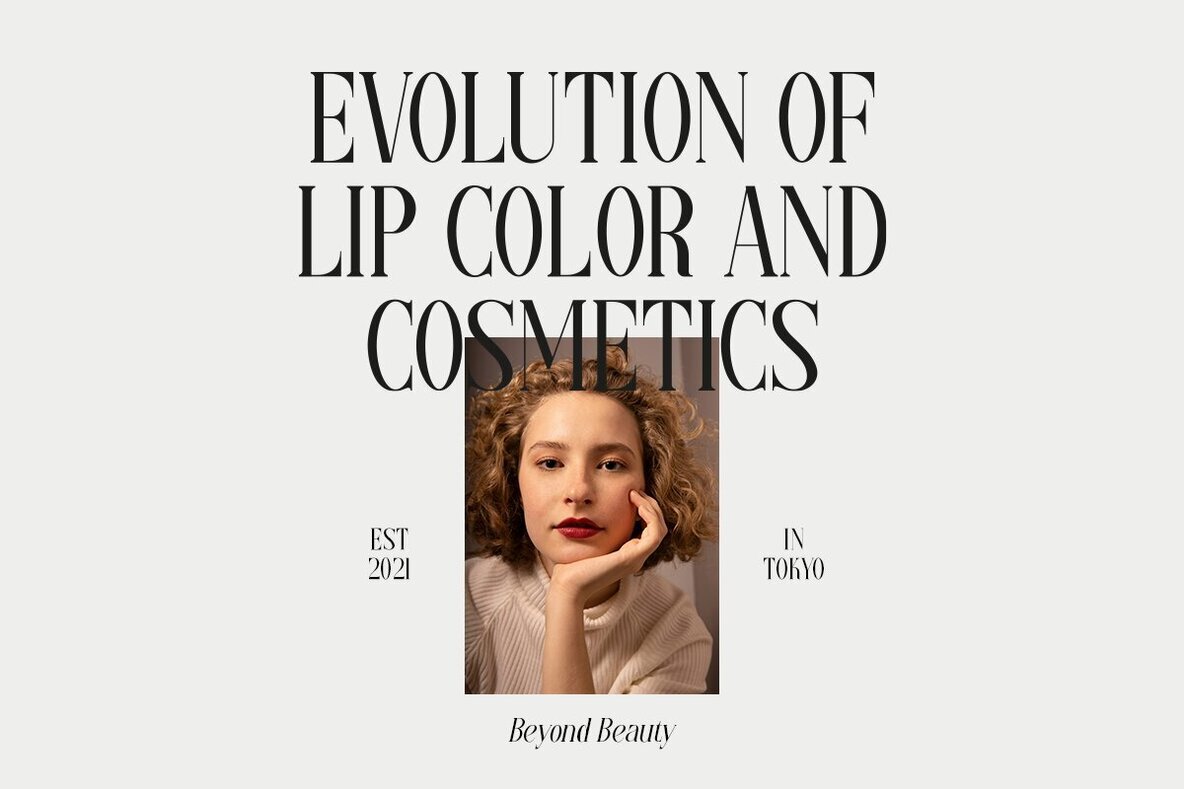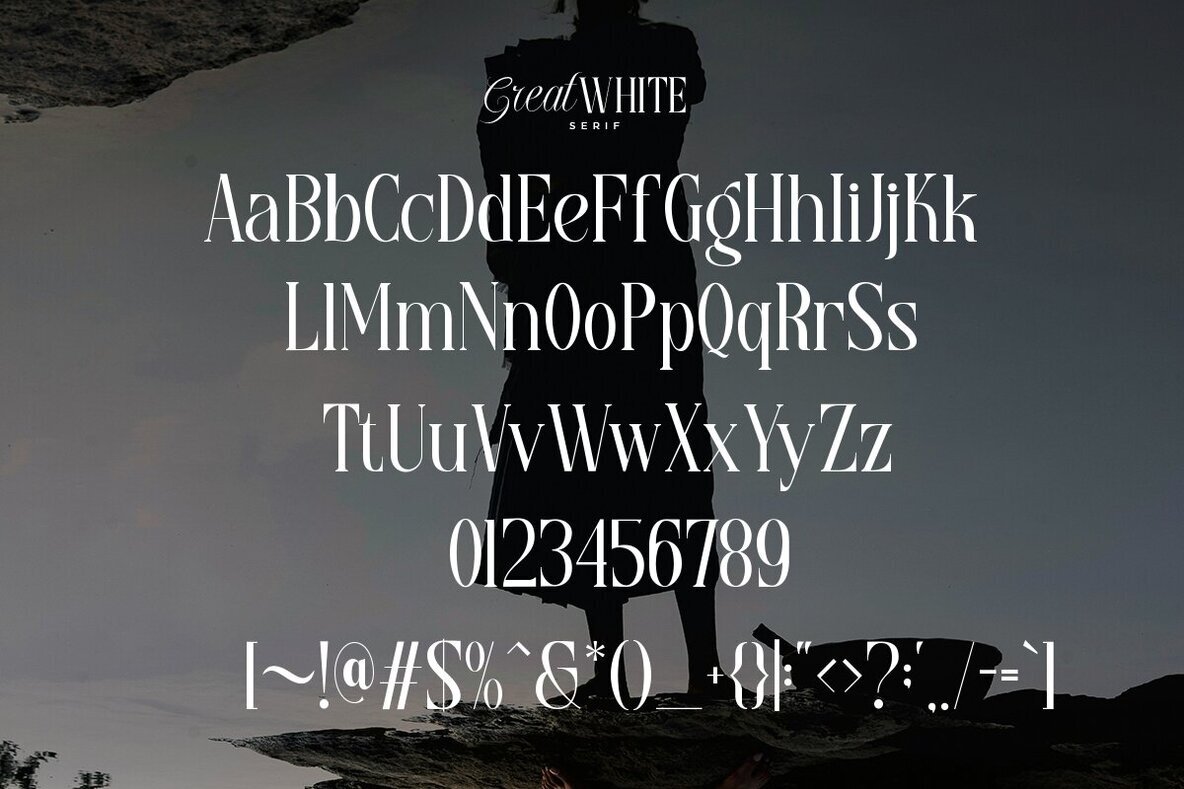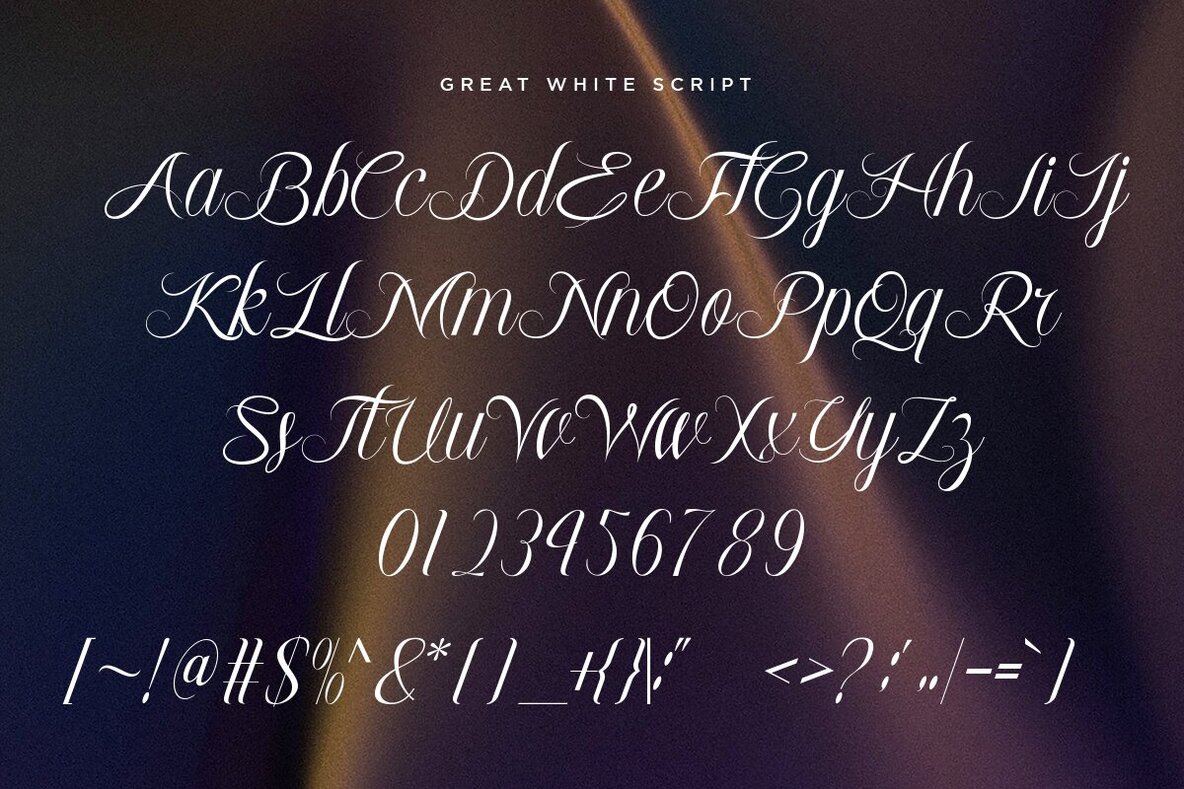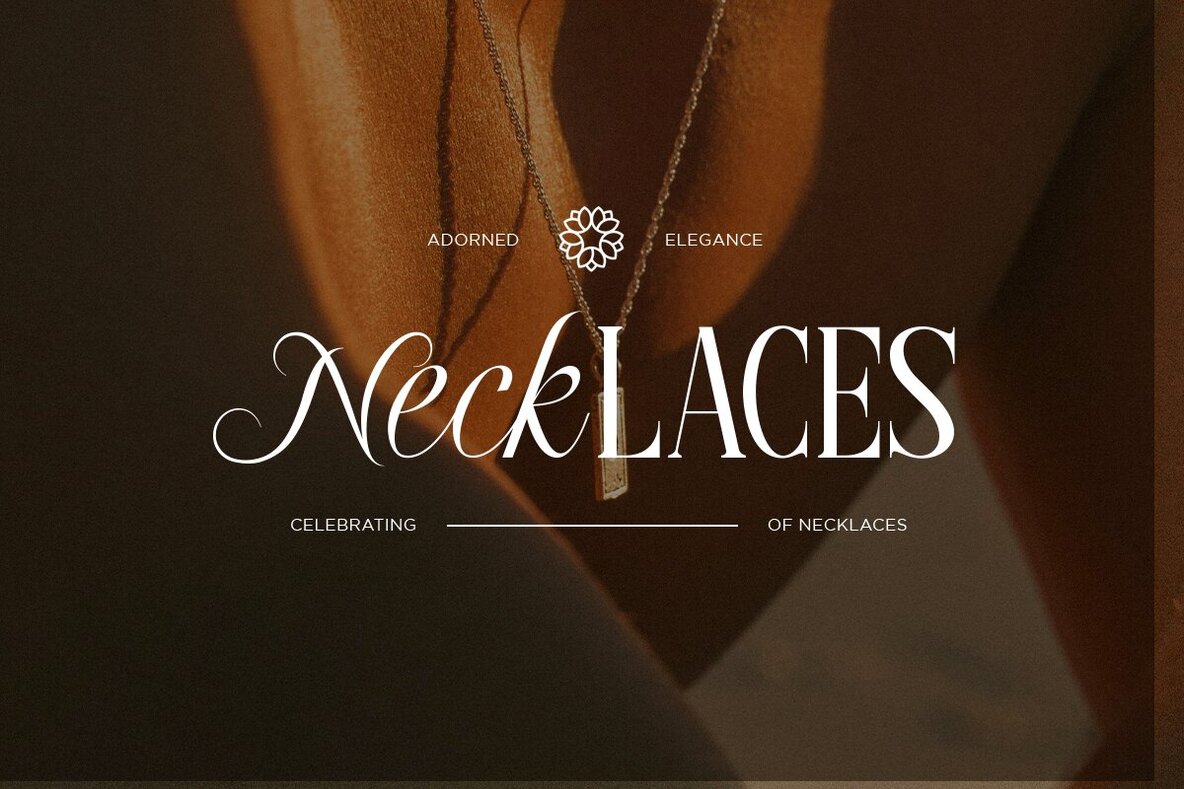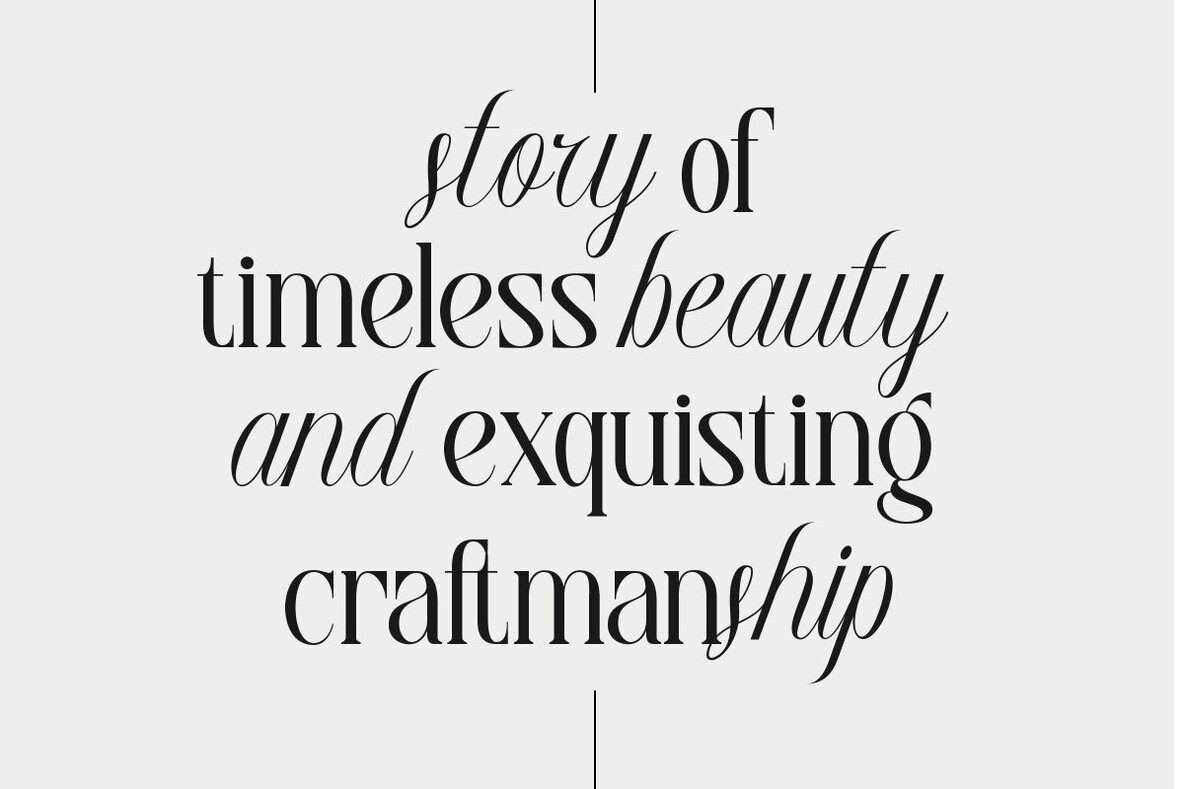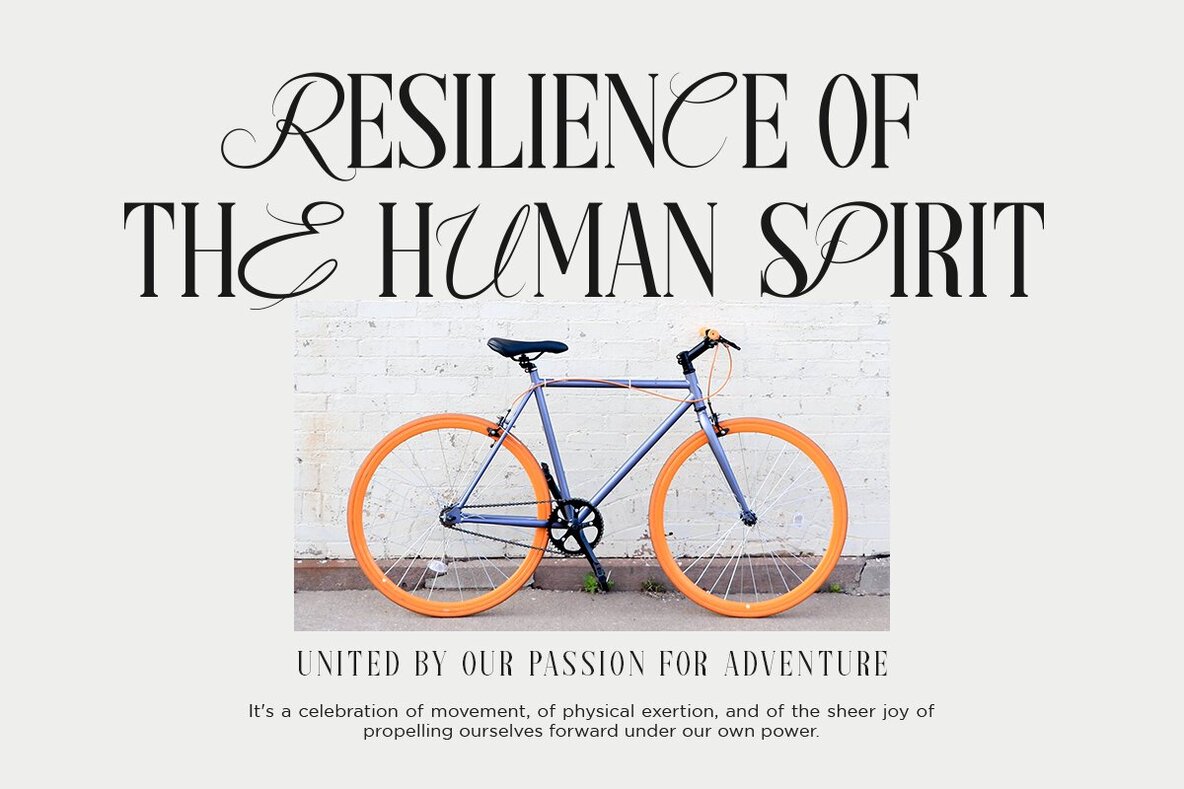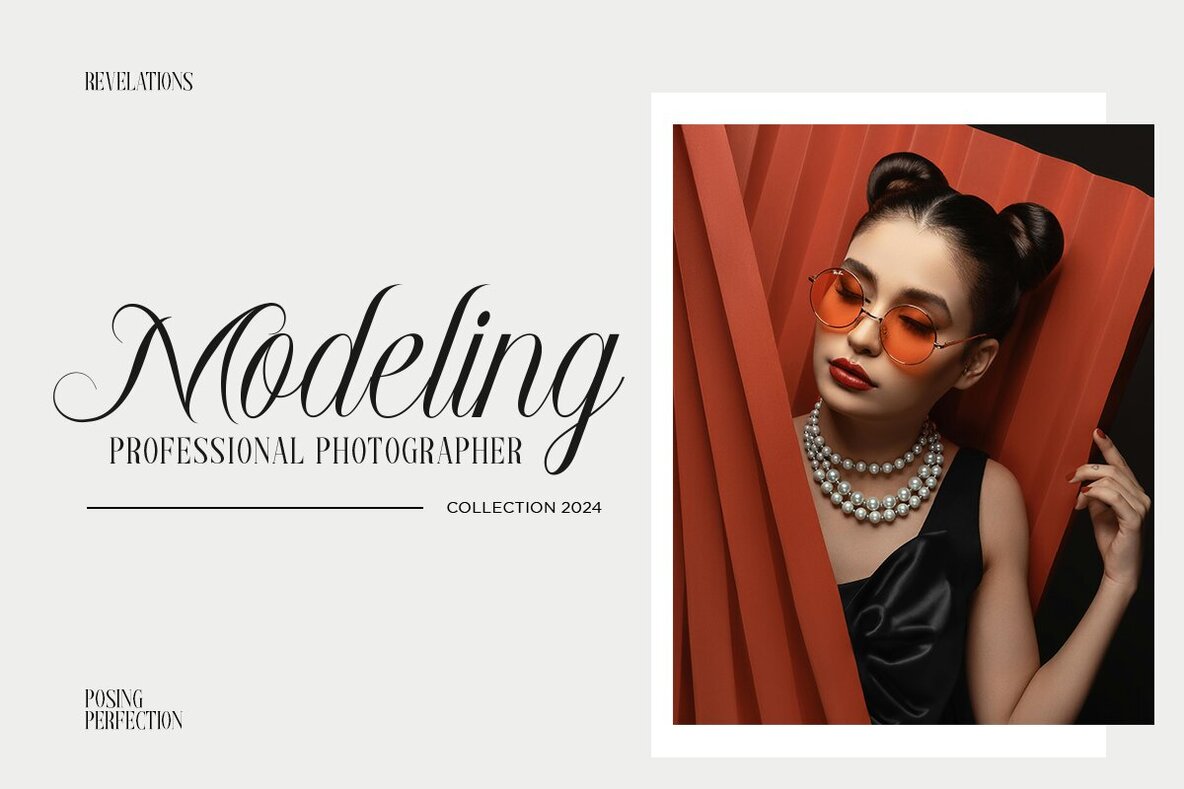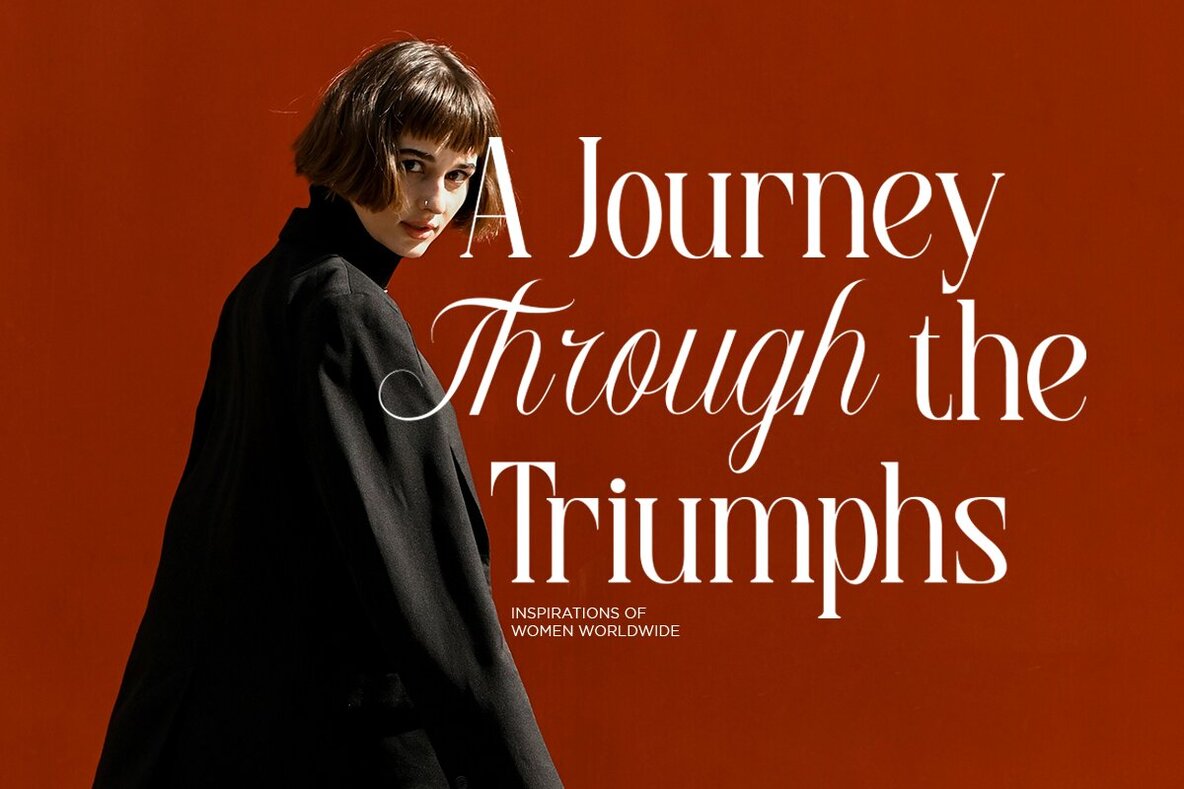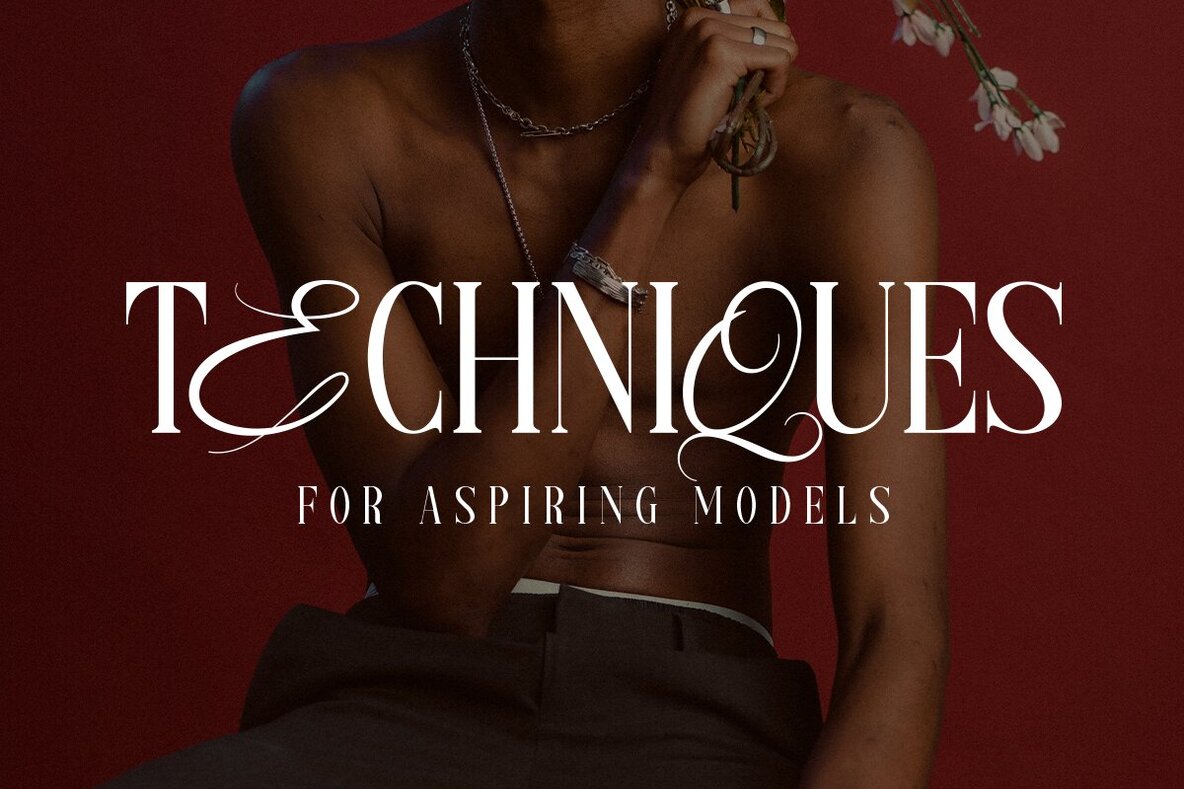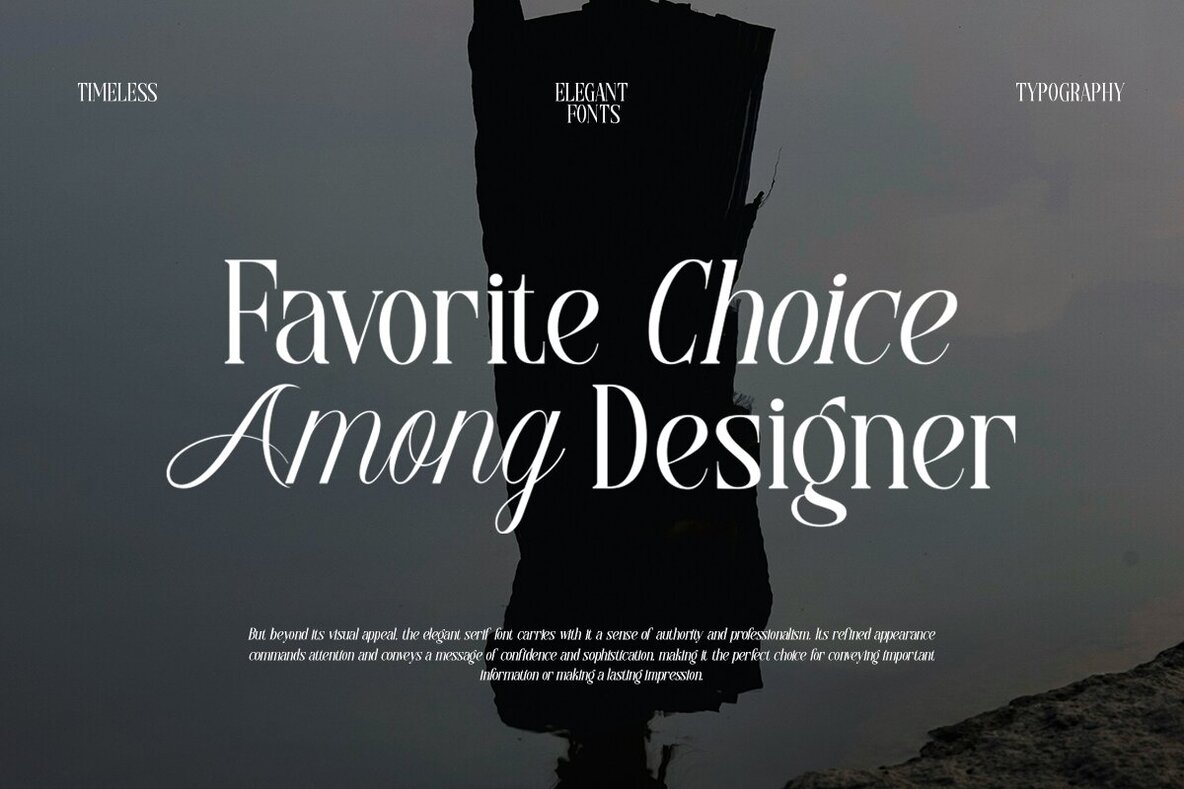
Great White Font
If you appreciate style and love elegant, classy designs, the Great White Font Duo is an exceptional choice. This font duo adds a touch of luxury and sophistication to your projects. They can be mixed together within the same word to create more eye-catching layouts, offering versatility for a range of design projects. This elegant typeface is timeless, making it a must-have for your font collection. It's ideal for wedding invitations, save-the-date cards, stylish logos, and feminine branding. Currently, only English is supported, but it includes accents such as: ¨, ˜, ´, ˆ, `, ˚, ¸.Great White: Elegant Font Duo for Stylish Designs